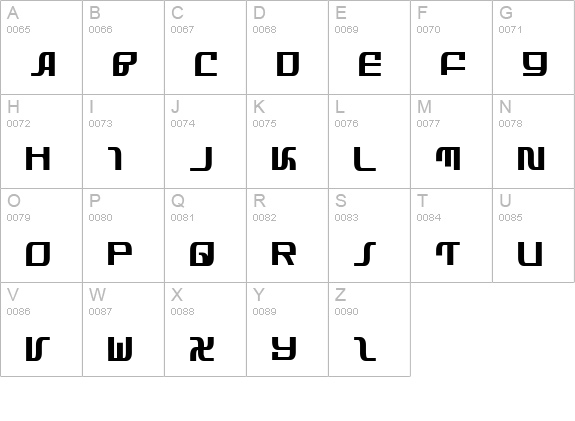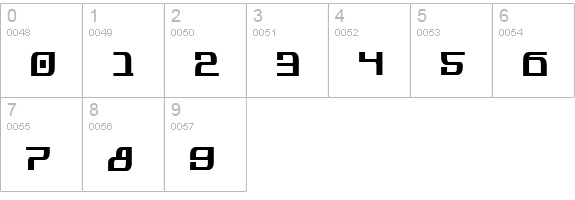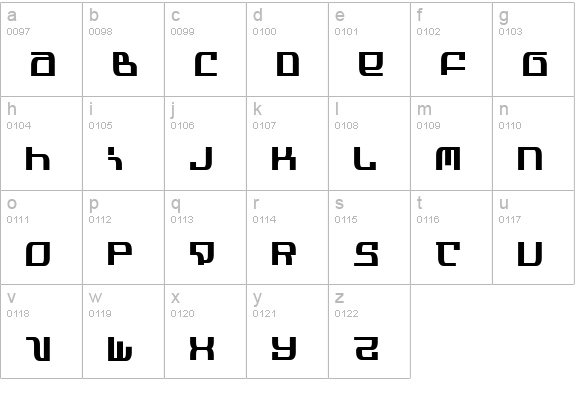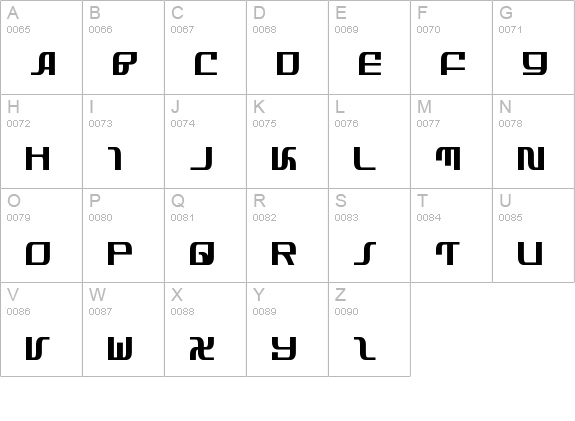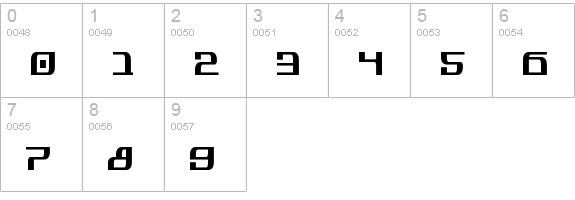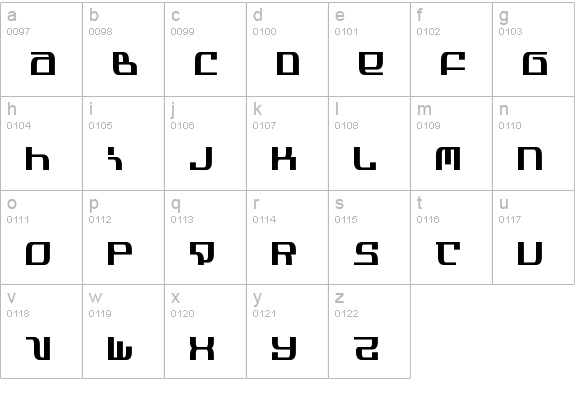
Infinity Formula Condensed is a distinctive, condensed-width variant in the Infinity typeface family \xE2\x80\x94 well suited to design and typography projects.
Infinity Formula Condensed is a sleek and modern sans-serif font that exudes sophistication and versatility. With its clean lines and condensed letterforms, this font is perfect for a wide range of design projects, from branding to editorial design. The geometric shapes and sharp angles of Infinity Formula Condensed give it a contemporary look that is sure to make your text stand out. What's even better is that Infinity Formula Condensed is available for free download at FontsMarket.com. This means you can add this stylish font to your collection without breaking the bank. Whether you're designing a website, creating a logo, or working on a print project, Infinity Formula Condensed is a fantastic choice that will add a touch of elegance to your work. Download it now and elevate your designs with this striking typeface.